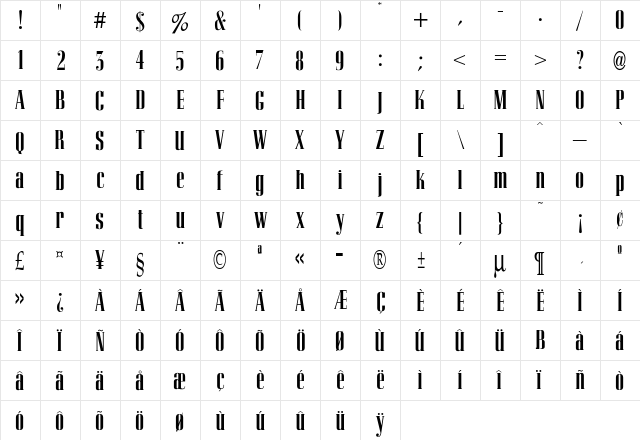
Vesuvius Regular
Design Context for Vesuvius Typeface
Vesuvius takes a measured approach to typography — its balanced proportions and neutral character make it a reliable workhorse for both digital and print work.
Pro Tip: Use Vesuvius in both headline and body roles to test its range before committing to a single application.